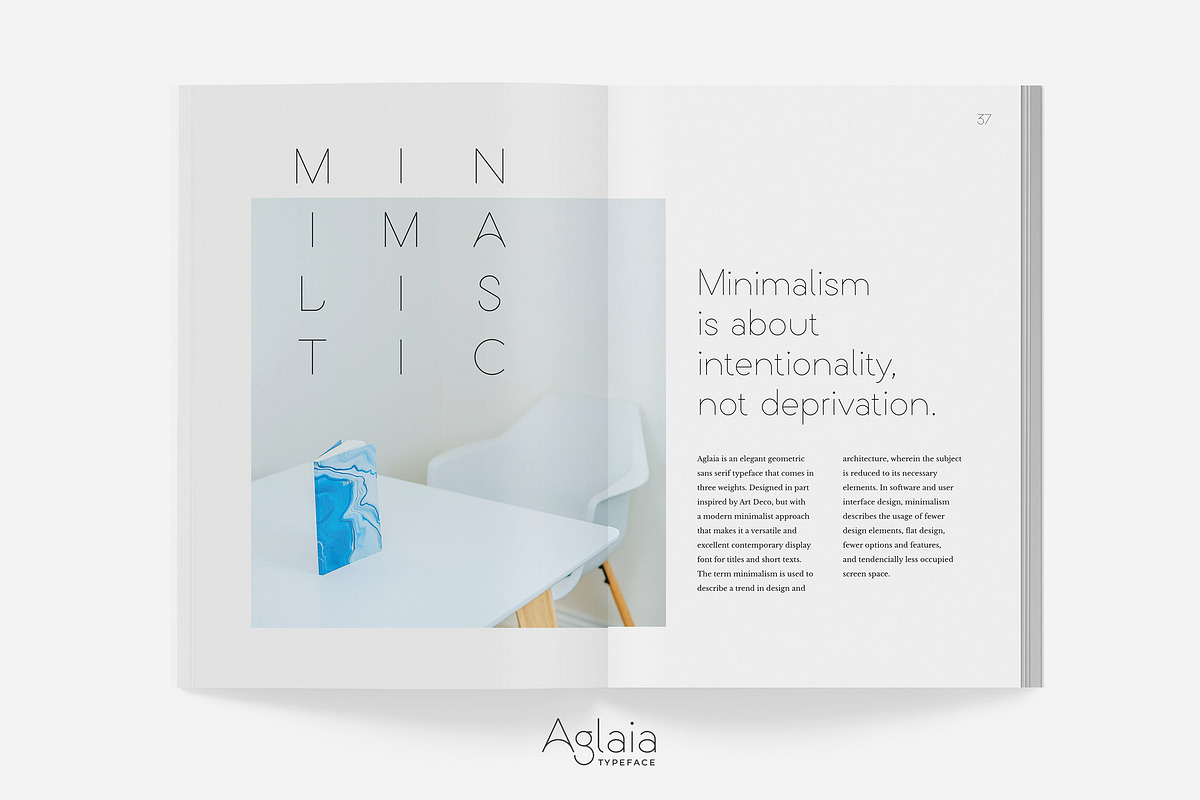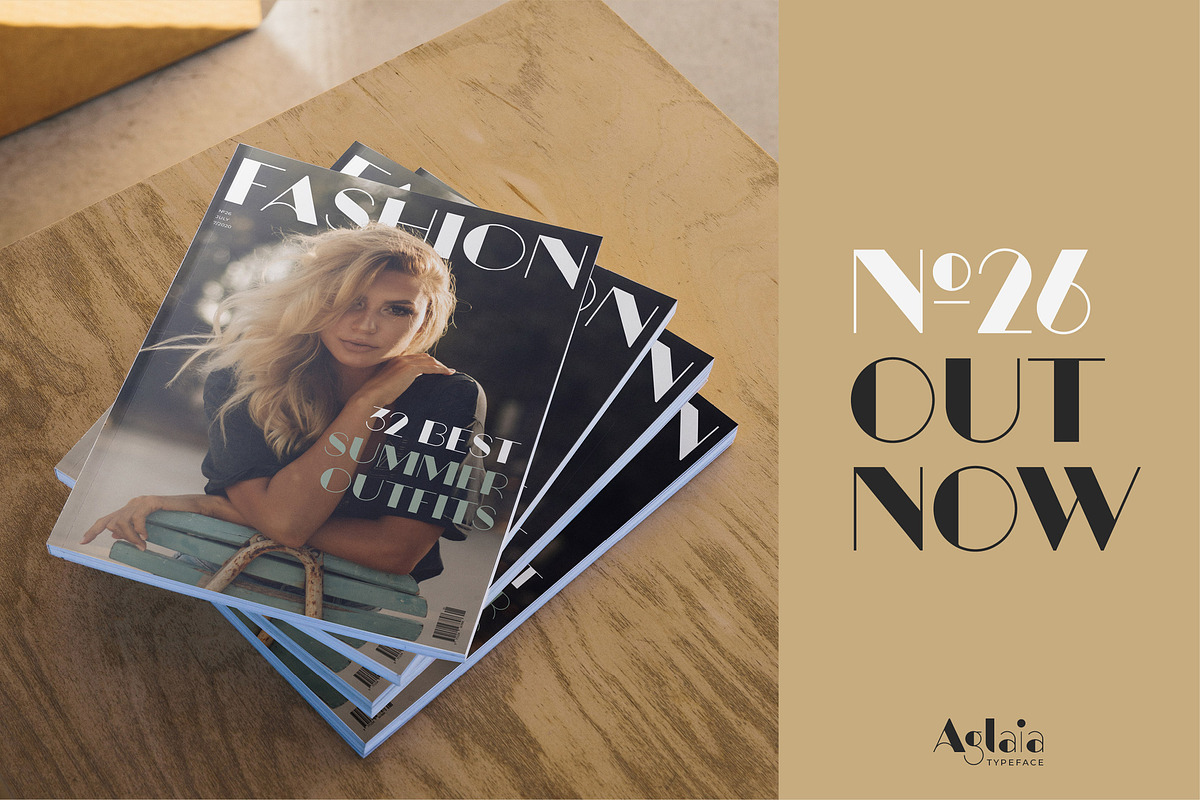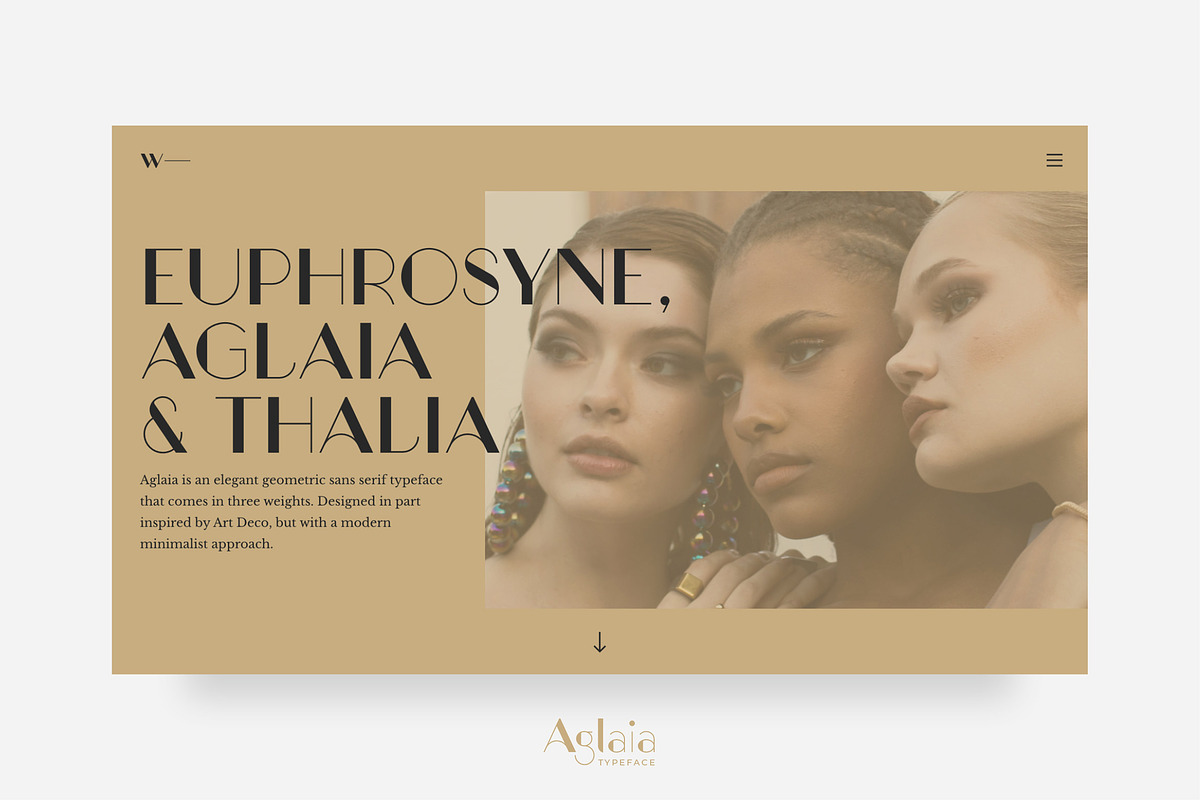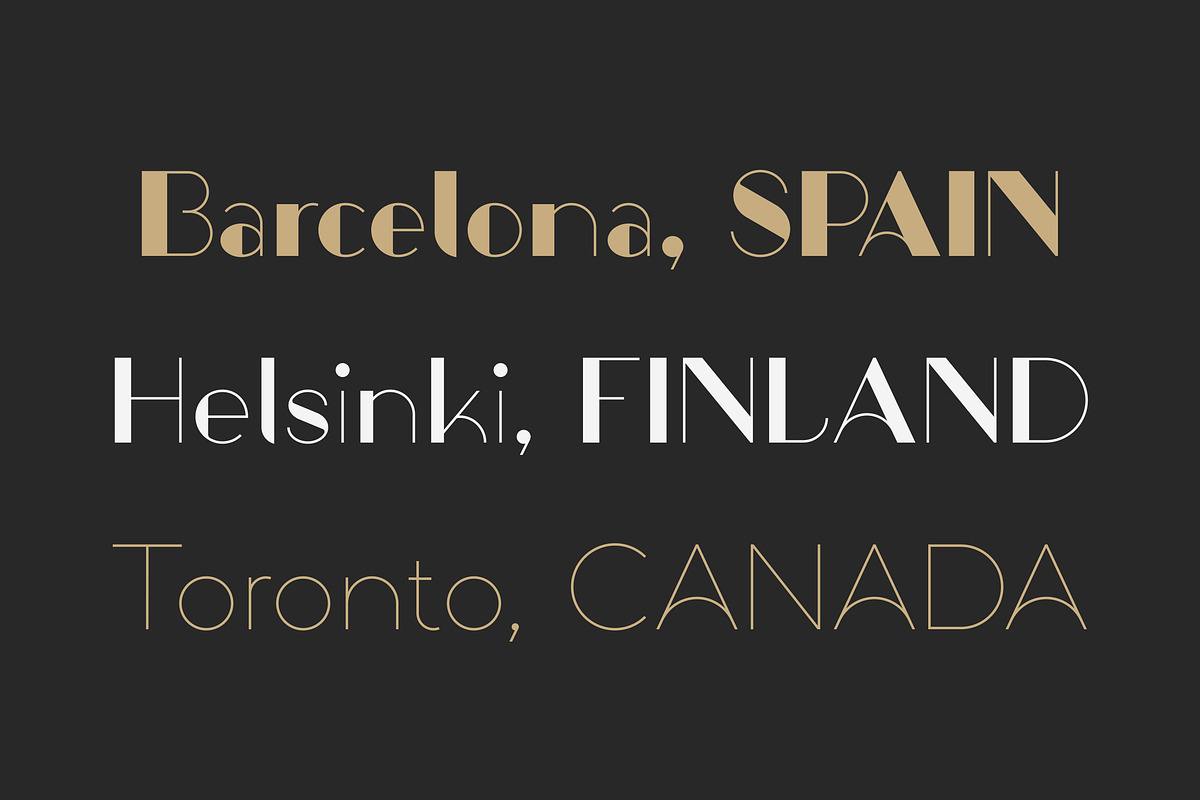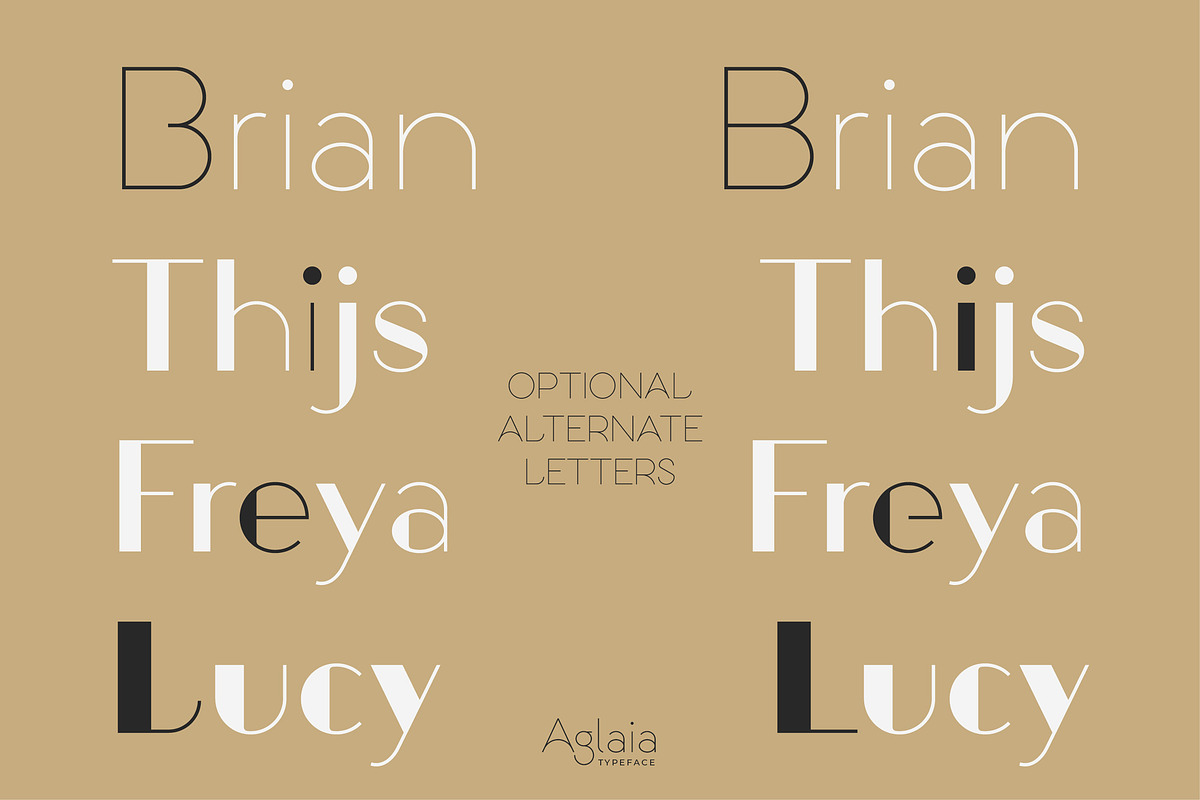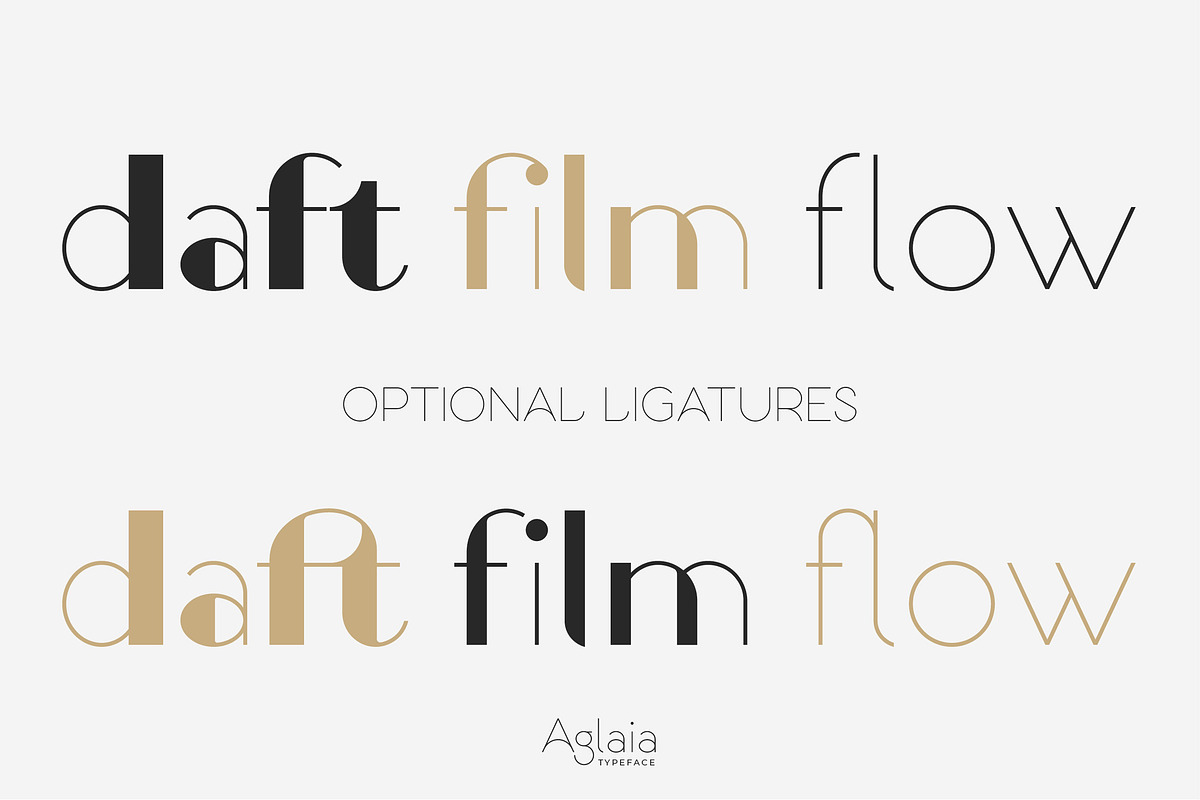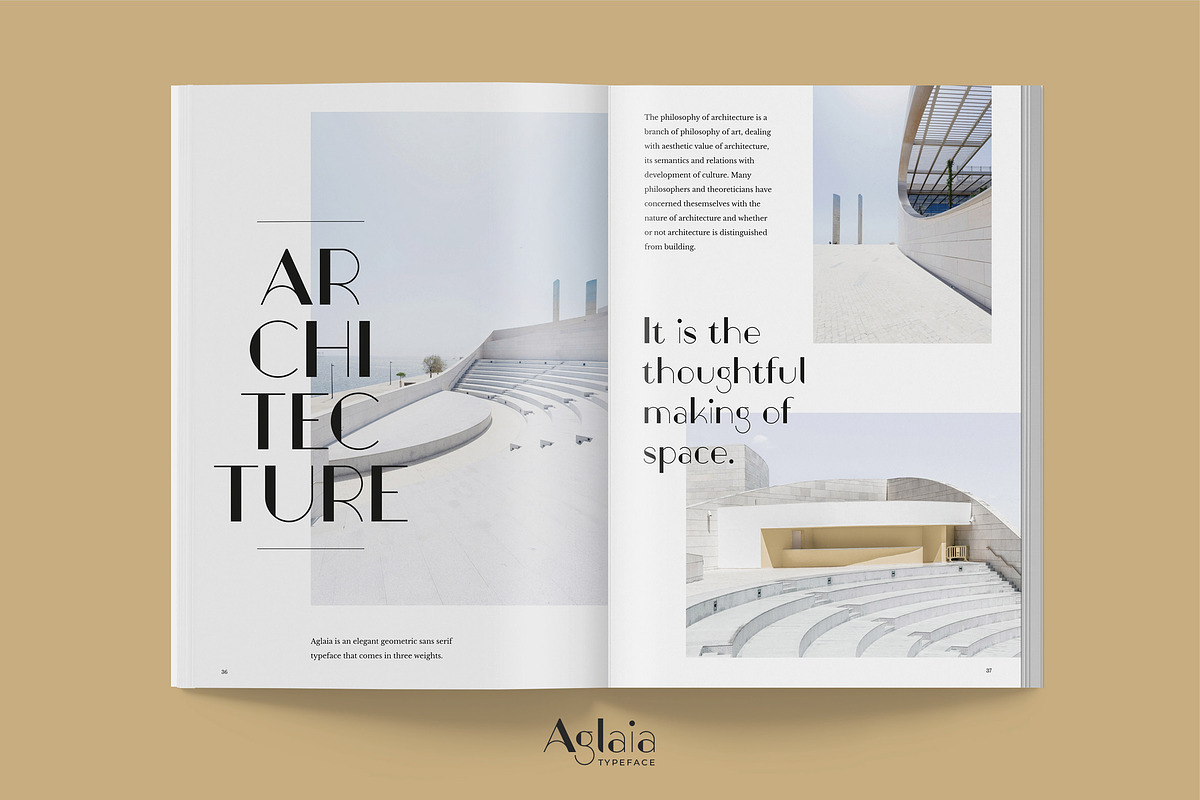
Aglaia Typeface • 3 Elegant Weights
Aglaia is an elegant geometric sans serif typeface that comes in three weights. Designed in part inspired by Art Deco, but with a modern minimalist approach that makes it a versatile and excellent contemporary display font for titles, editorials and short texts.
Numerals, Punctuation & Symbols
Alternates & Ligatures
Multiple Languages Support (Latin characters + Diacritics)
- Uppercase & Lowercase
- Numerals, Punctuation & Symbols
- Alternates & Ligatures
- Multiple Languages Support (Latin characters + Diacritics)
- Aglaia Hairline
- Aglaia Regular
- Aglaia Heavy